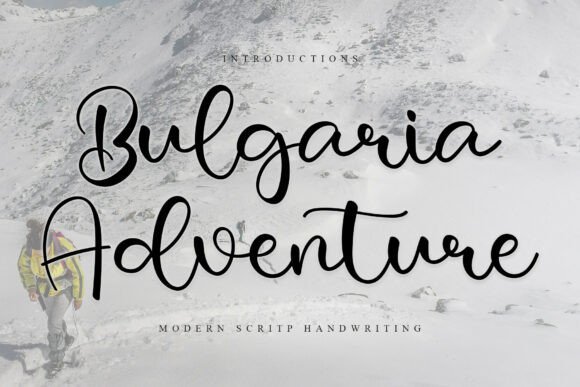
Introduction to Bulgaria Adventure Font
Bulgaria Adventure – A Delightful Elegant Script Font Introducing Bulgaria Adventure – a beautifully crafted handwritten script font that exudes elegance and charm.
Perfect for branding, invitations, logos, and any creative project, this font combines fluid, natural strokes with a touch of sophistication, making it an ideal choice for an Elegant Script Font Whether you’re designing a bakery logo, a romantic greeting card, or stylish packaging, Bulgaria Adventure adds a personal and refined touch.
Key Features of Bulgaria Adventure Font
Why Choose Bulgaria Adventure Font?
Bulgaria Adventure Font offers exceptional quality and versatility, making it a valuable addition to your design toolkit. Whether you’re creating for personal projects or commercial use, Bulgaria Adventure Font delivers professional results.